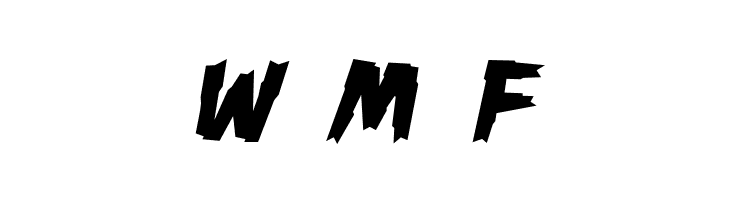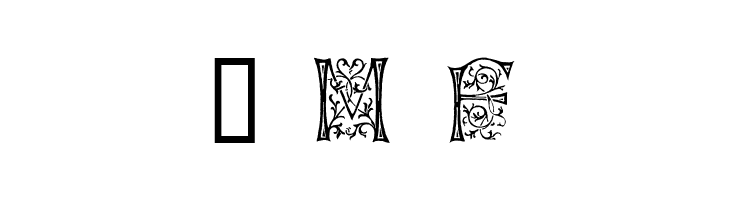
A bold, decorative font with animal silhouettes integrated into each letter.
A whimsical font with characters inside cupcake outlines, perfect for playful designs.
A playful font with letters inside popcorn buckets, perfect for entertainment themes.
A pictographic display font with ancient and tribal-inspired symbols.
A decorative font inspired by maritime flags with bold geometric shapes.
A decorative typeface inspired by Dia de los Muertos, featuring festive and thematic symbols.
A collection of bold, 1980s-themed icons and graphics.
A bold, jagged font with sharp, angular edges and an aggressive style.
A bold, playful font with a quirky, vintage horror style.
A decorative font made of human figures forming letters and numbers in a Renaissance style.
A bold, decorative typeface inspired by ancient runic alphabets with geometric shapes.
A bold, superhero-themed font with diamond-shaped outlines and intricate line work.
A decorative, abstract font with circular, futuristic glyphs.
A bold, star-patterned decorative font ideal for festive designs.
A horror-themed font with a dripping, blood-like effect and sharp serifs.
A bold, edgy font with dynamic, uneven strokes and a strong visual impact.
A bold, runic-style font with a rugged, ancient appearance.
An ornate, decorative font with intricate floral patterns and a Gothic style.
A decorative, ornamental font with intricate designs and historical elegance.
Ornate heraldic shields with detailed line illustrations as characters.
Pattern-based decorative set with African-inspired motifs.
A bold, Gothic-inspired font with distressed texture and ornate details.
A whimsical font with characters encased in cartoon bear figures, perfect for playful designs.